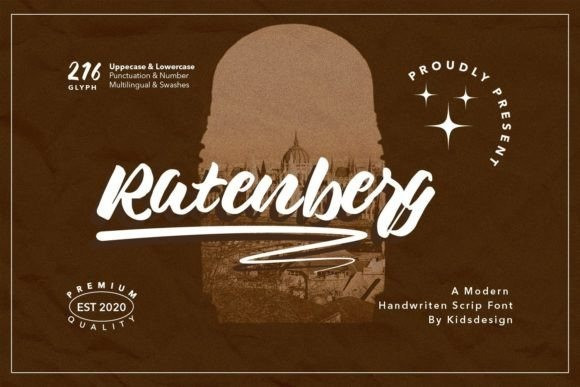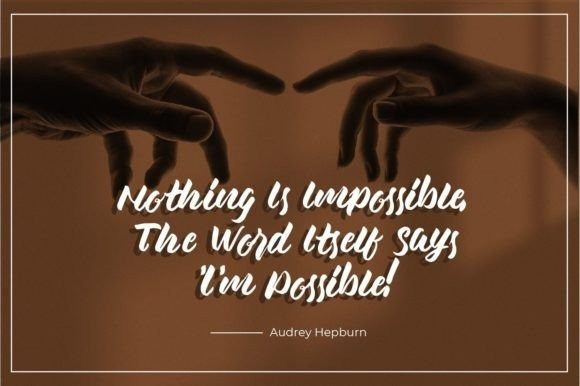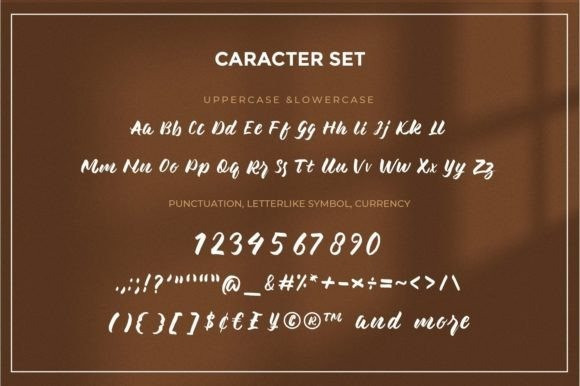
Ratenberg Font
Ratenberg is a modern script font, suitable for any projects such as logos, branding projects, homeware designs, product packaging, mugs, quotes, posters, shopping bags, t-shirts, book covers, name cards, invitation cards, greeting cards, label, photography, watermark, special events, and all your other lovely projects that need beautiful handwriting taste.